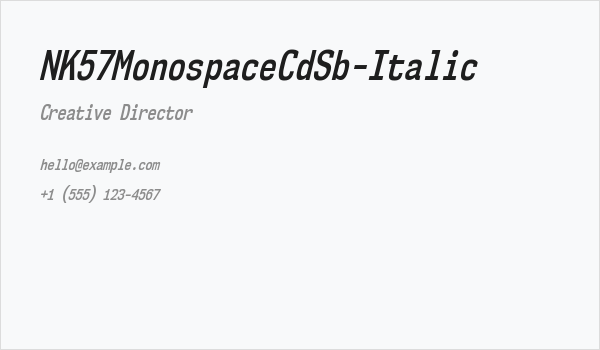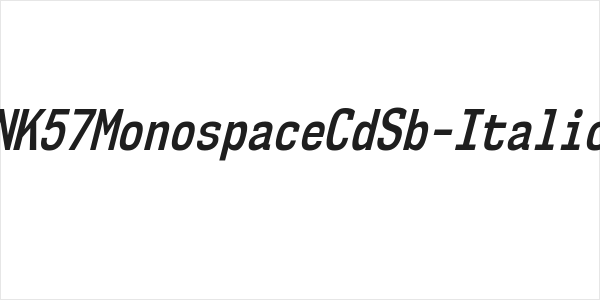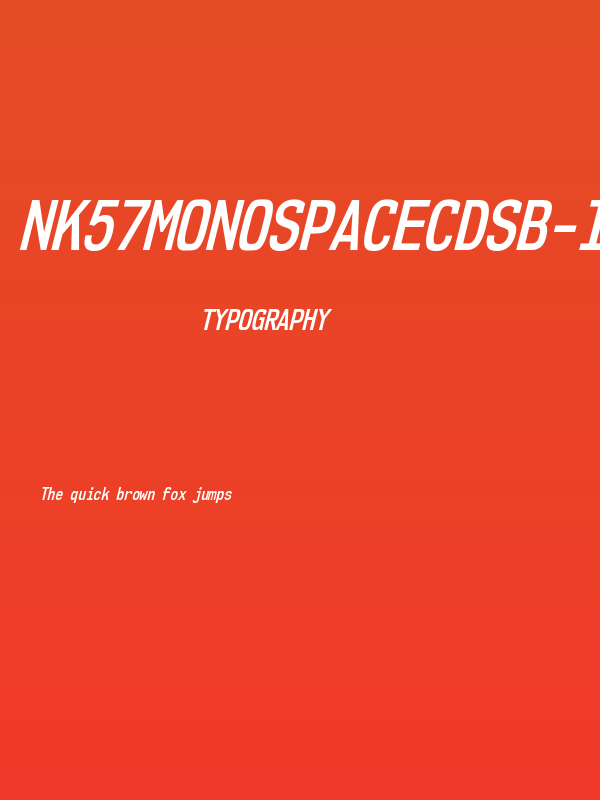
NK57MonospaceCdSb-Italic Font
NK57MonospaceCdSb-Italic Description
This font features a clean and modern design with a monospaced structure, ensuring each character occupies the same amount of horizontal space. The italic style adds a dynamic and forward-leaning appearance, enhancing its contemporary feel. The characters are slightly condensed, contributing to a sleek and efficient look, ideal for coding environments or technical documentation. The stroke contrast is low, maintaining uniformity across all characters, which aids in readability and clarity. This font's design is both functional and aesthetically pleasing, making it suitable for a variety of digital applications.
| Use Case | Coding, Technical documentation, Digital interfaces |
| Proposed Projects | Ideal for coding, technical documentation, and digital interfaces where readability and space efficiency are crucial. |